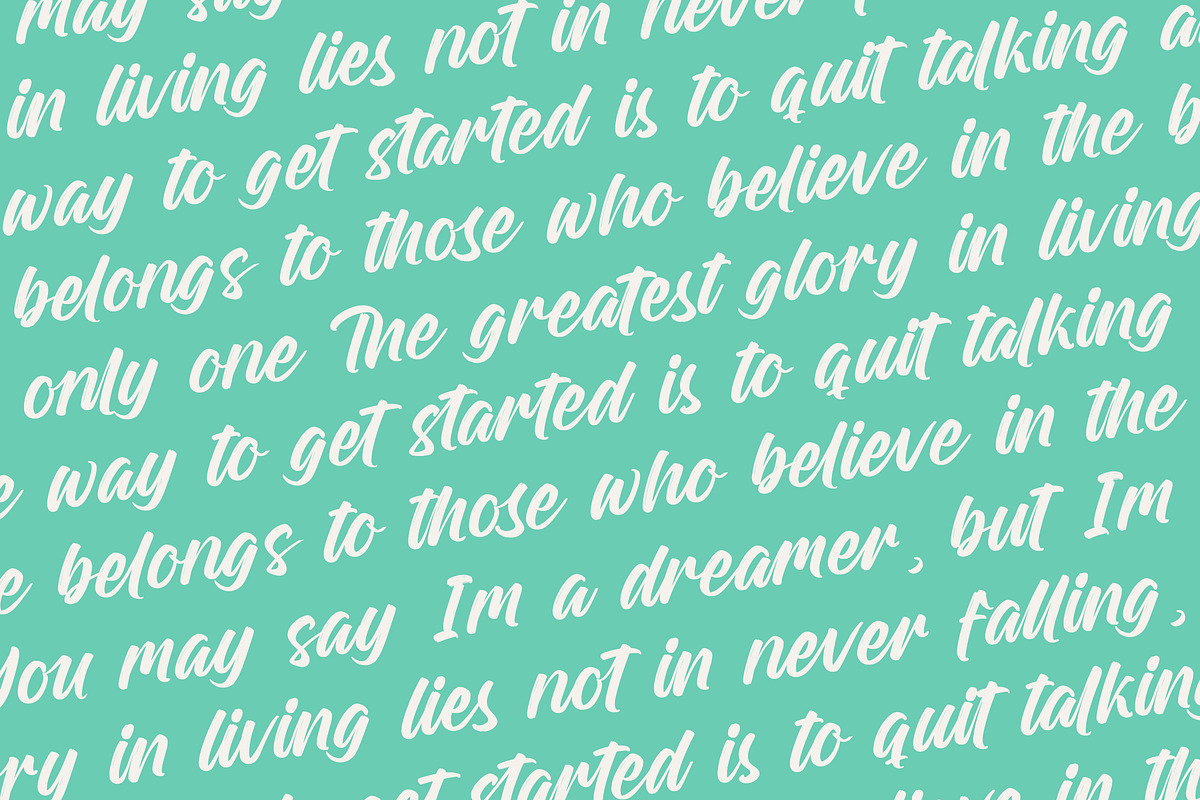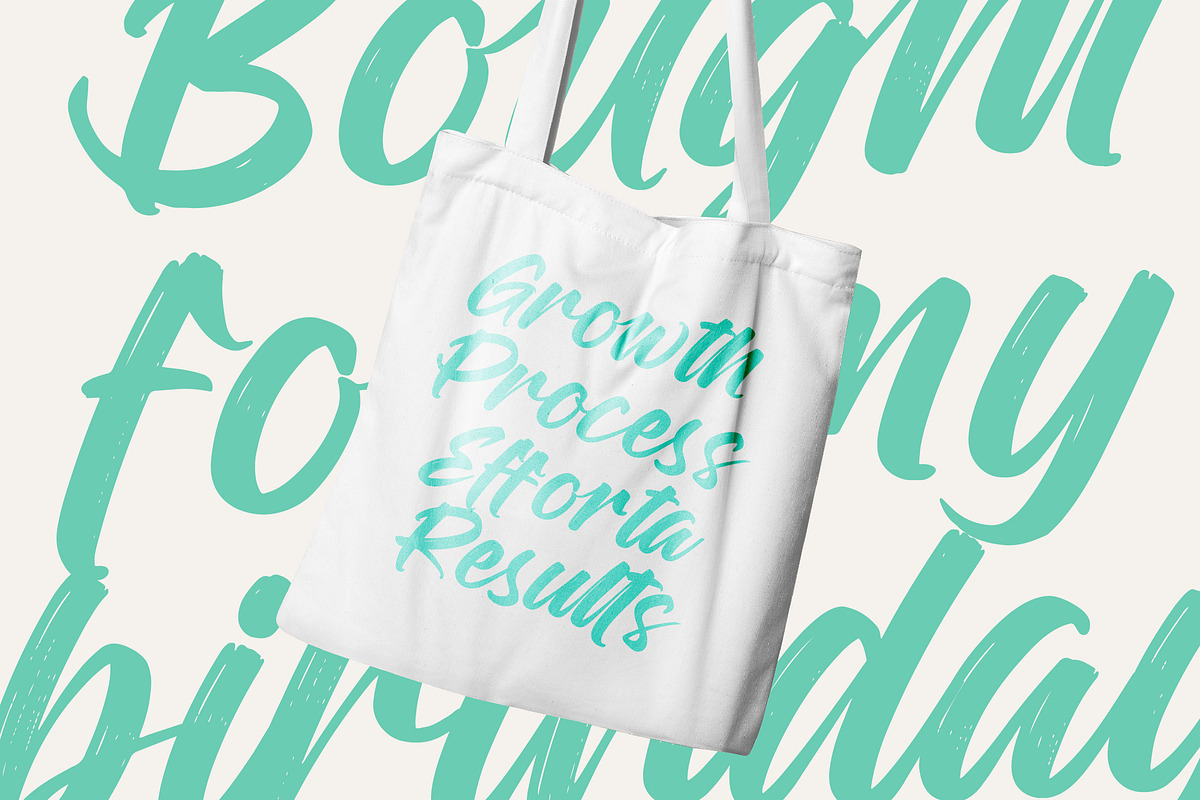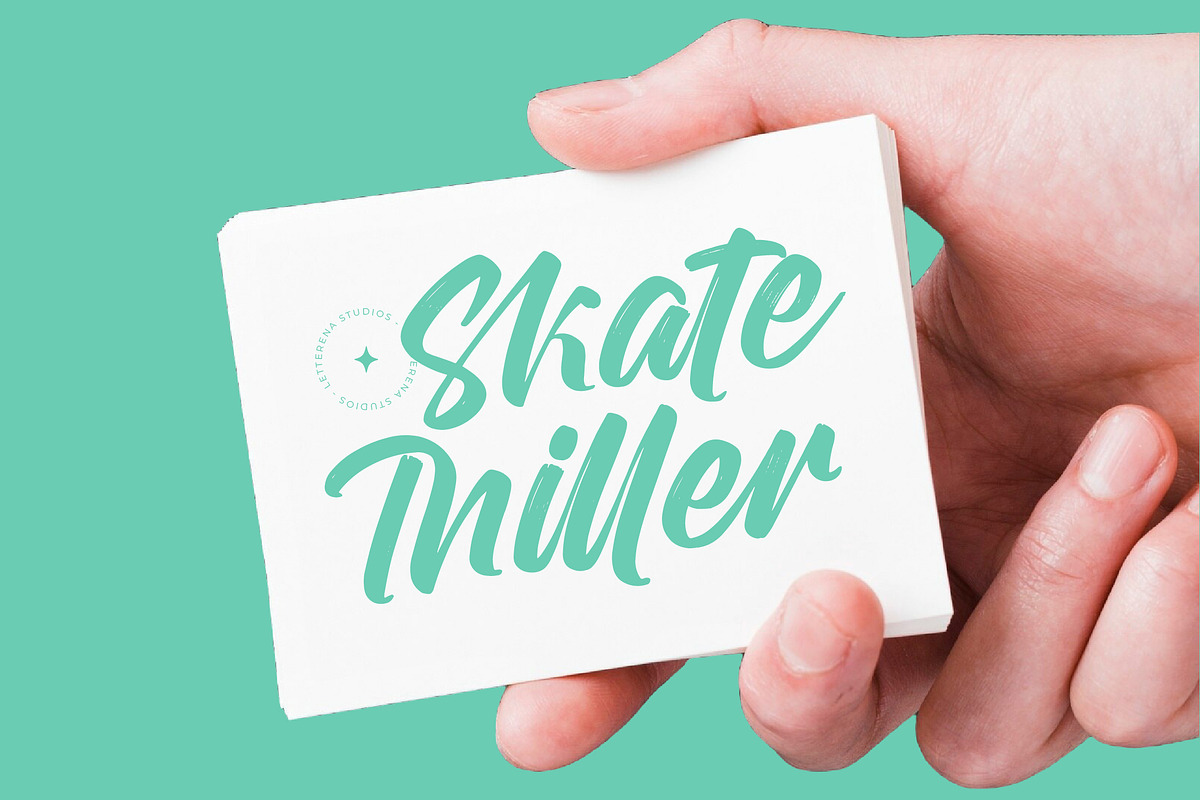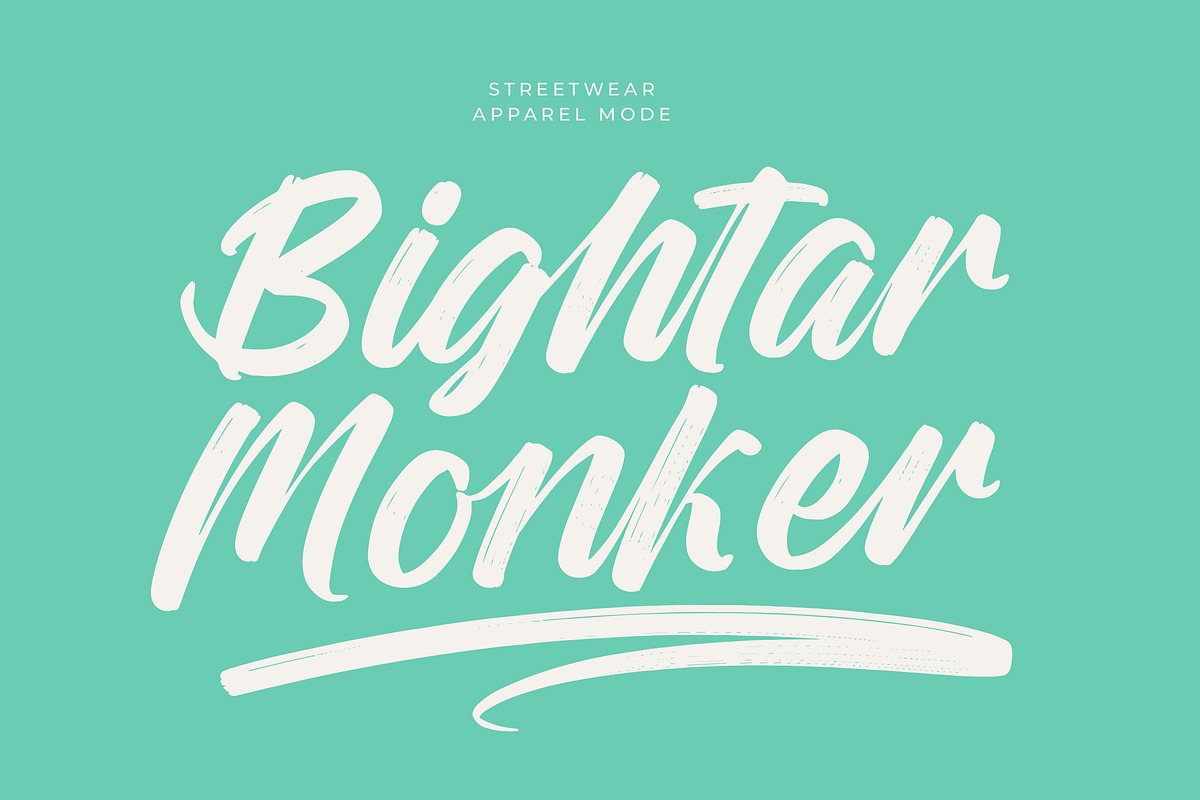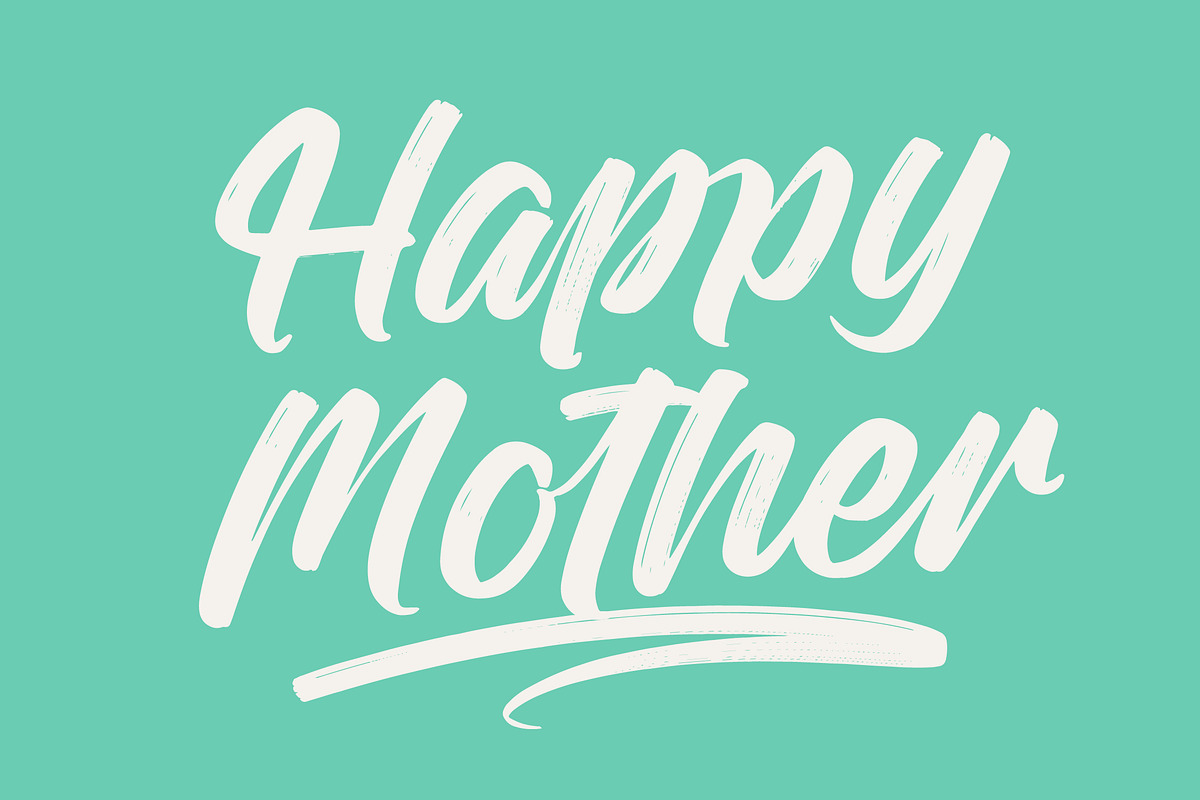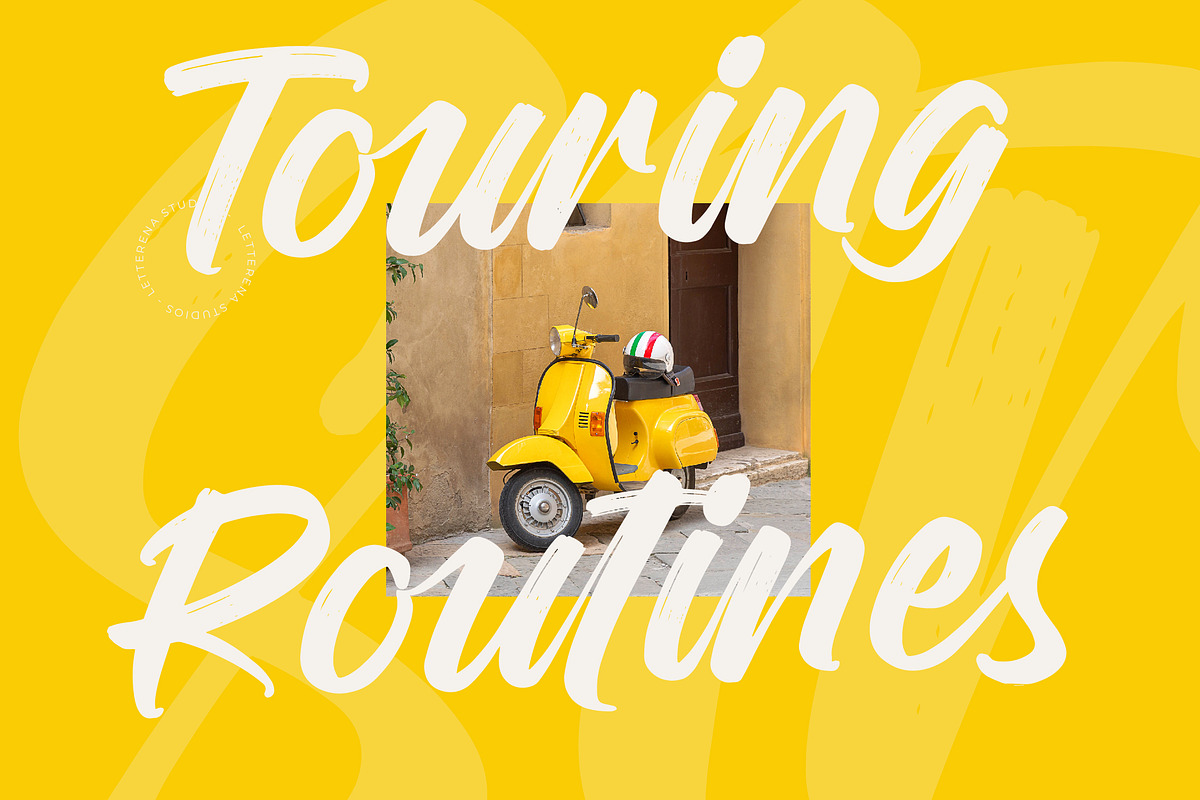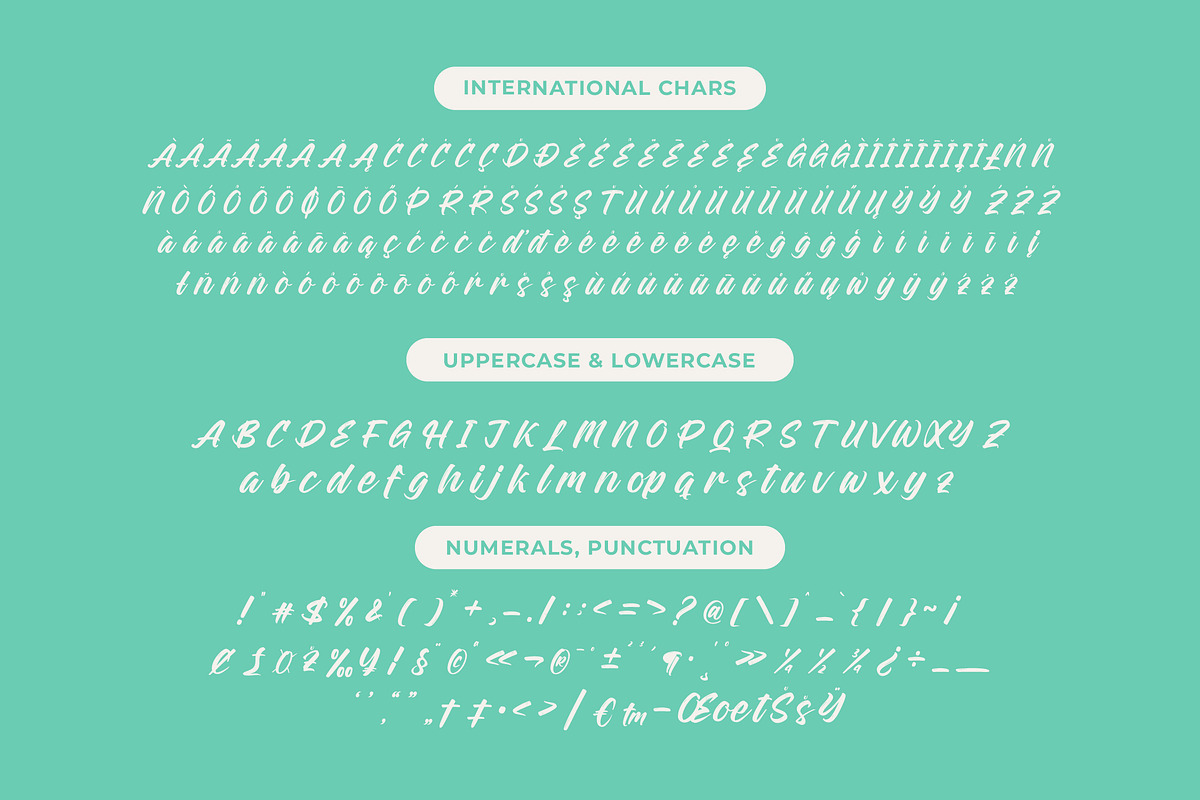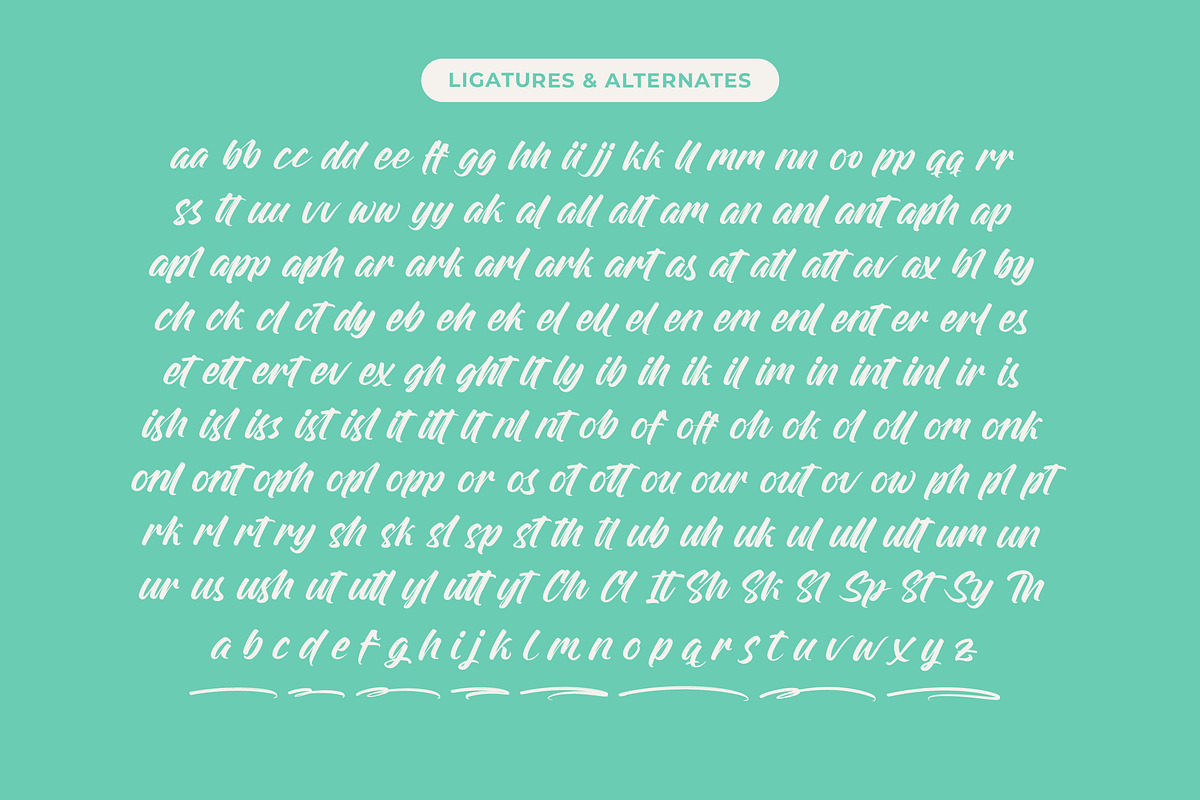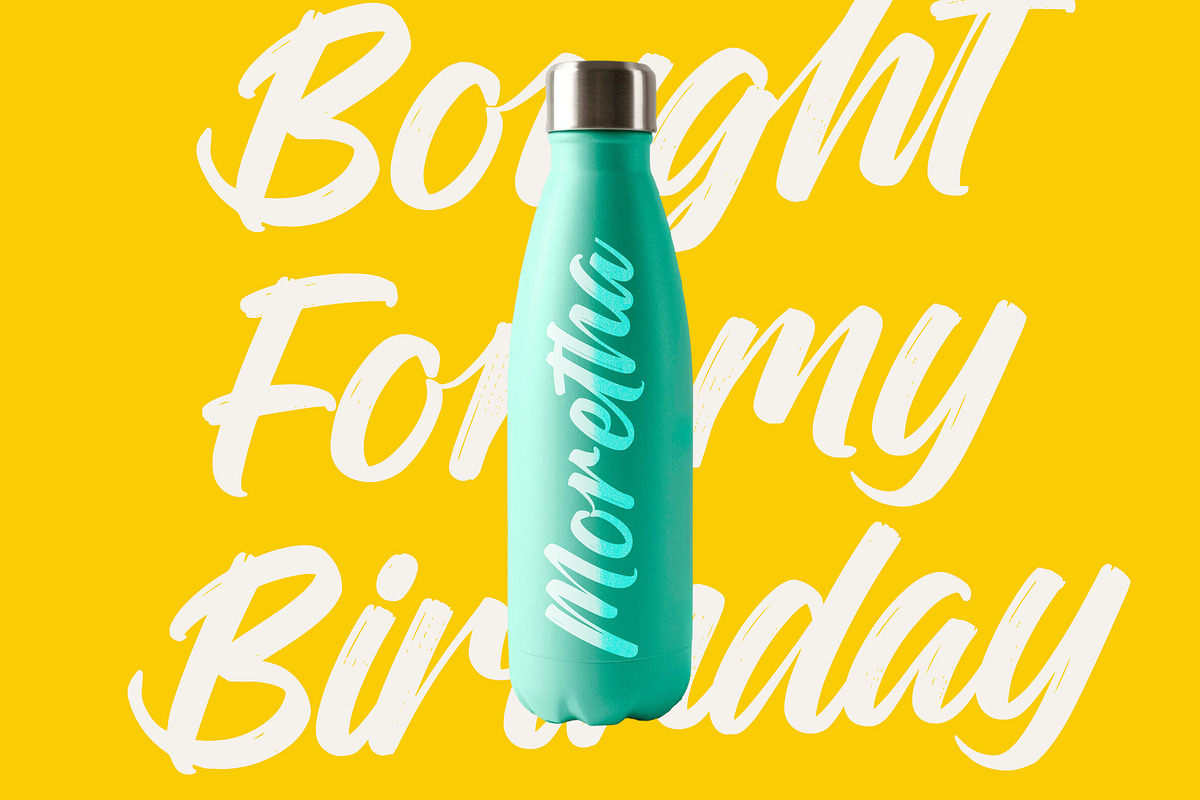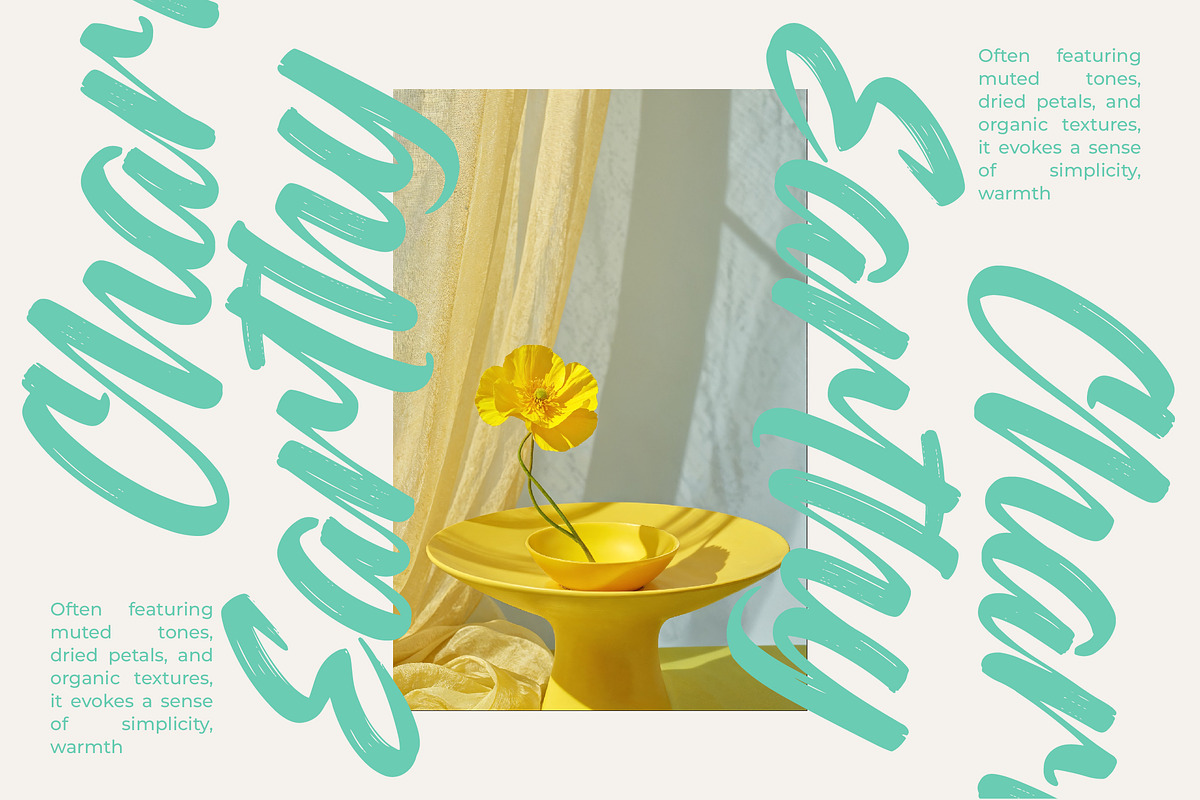
Rough Streak Bold Brush Font
Rough Streak - Bold Brush Font , from Letterena, is a Luxury Script font, suitable for any projects such as: logos, branding projects, homeware designs, product packaging, mugs, quotes, posters, shopping bags, t-shirts, book covers, name card, invitation cards, greeting cards, label, photography, watermark, special events, and all your other luxury and beautiful projects that need a Luxury Script taste.
- 145 Ligature 26 Alternate & Swashes